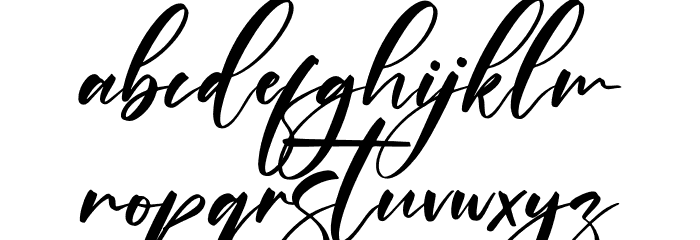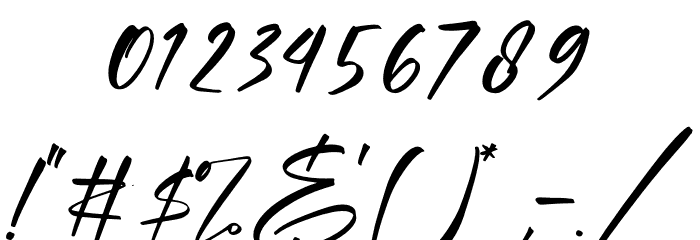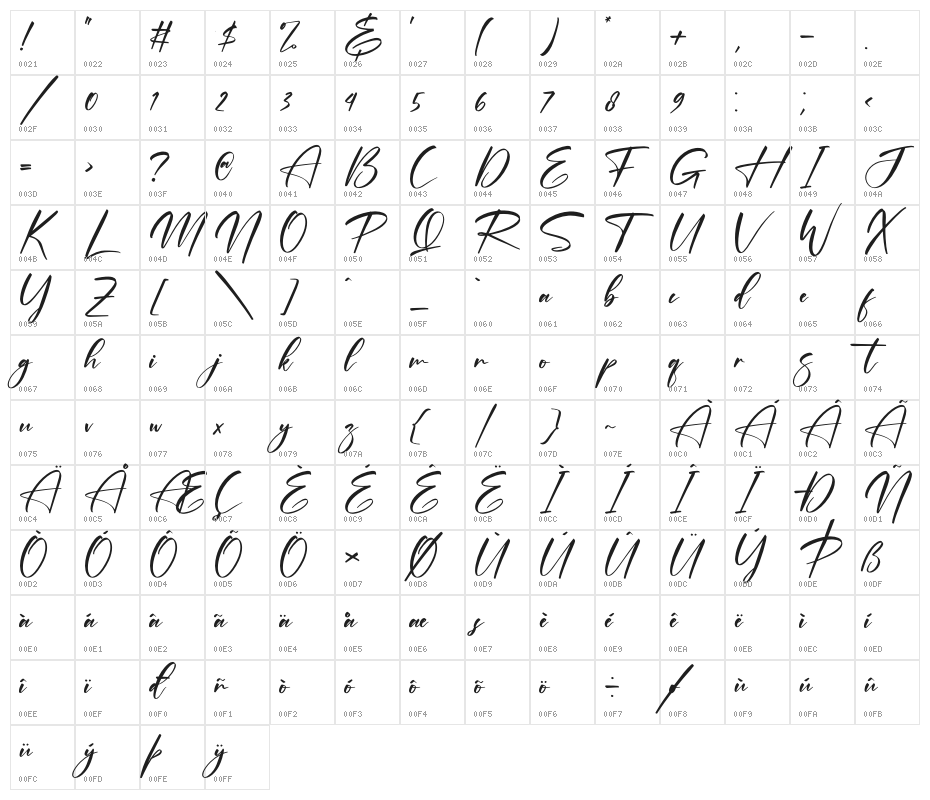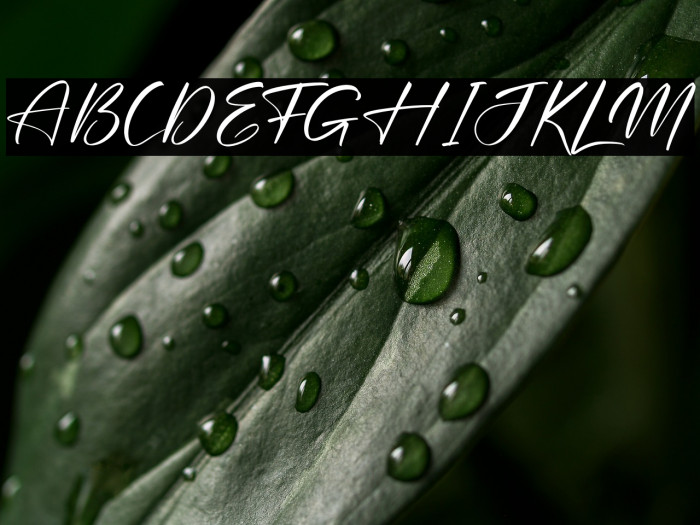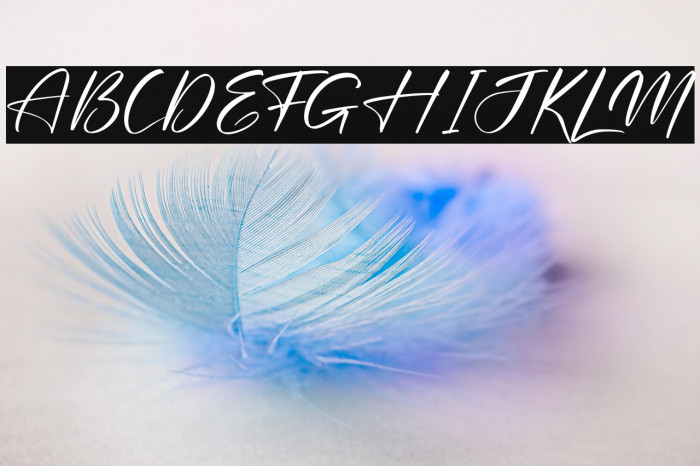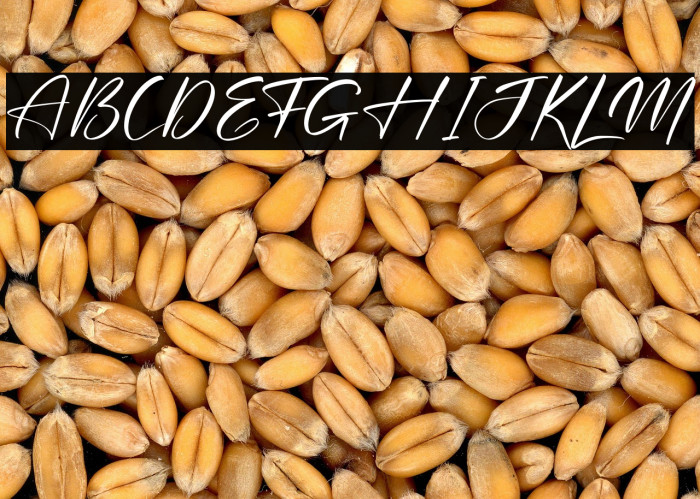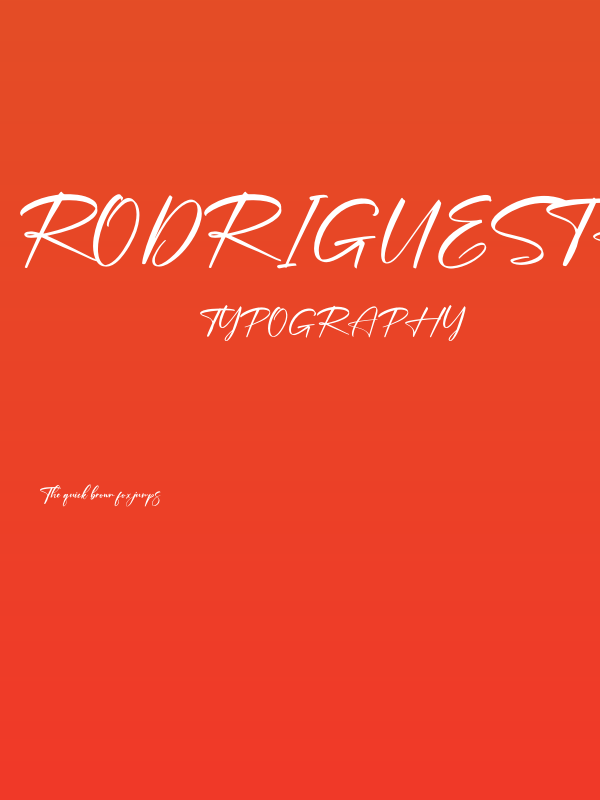
Rodriguesta Font
This font exudes a dynamic and elegant script style, characterized by its fluid, cursive strokes that convey a sense of motion and grace. The uppercase letters are bold and sweeping, with a distinctive flair that adds a touch of sophistication. The lowercase letters maintain a consistent flow, enhancing readability while retaining an artistic touch. The numerals are stylish and integrate seamlessly with the overall design, making them suitable for various applications. Special characters are thoughtfully designed, complementing the font's aesthetic. This font is perfect for projects that require a personal, handwritten feel, such as invitations, branding, and creative designs.
A dynamic and elegant script font with fluid, cursive strokes.
- Font: Rodriguesta
- Proposed Projects: Ideal for wedding invitations, branding, logos, and creative design projects.
- Overall Style: Elegant, Artistic
- Use Case: Logos, Invitations, Branding